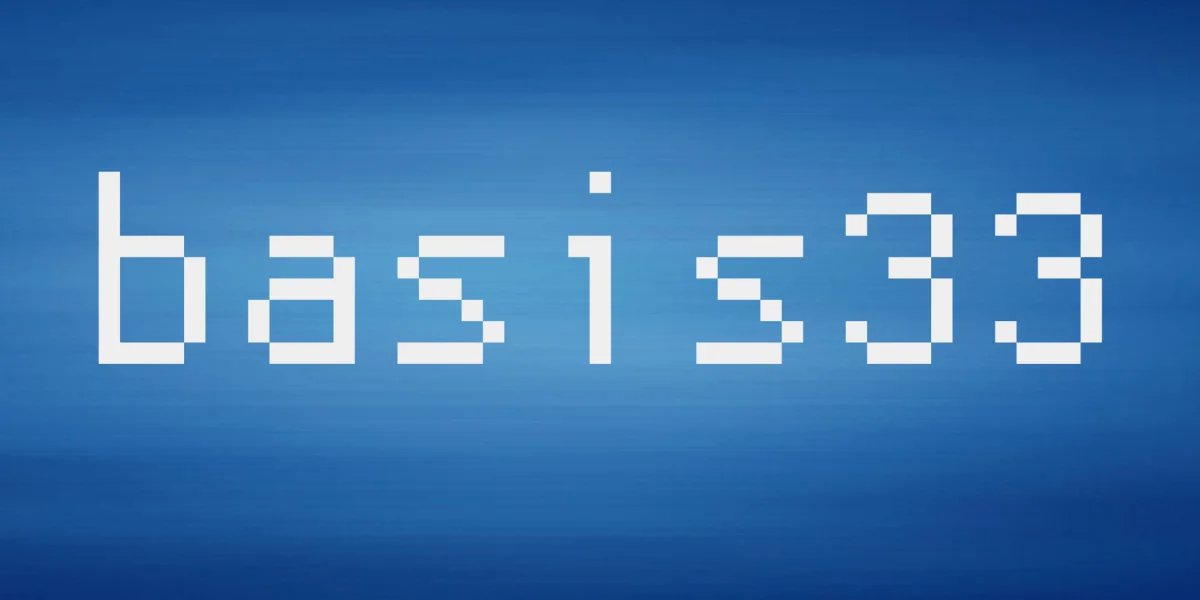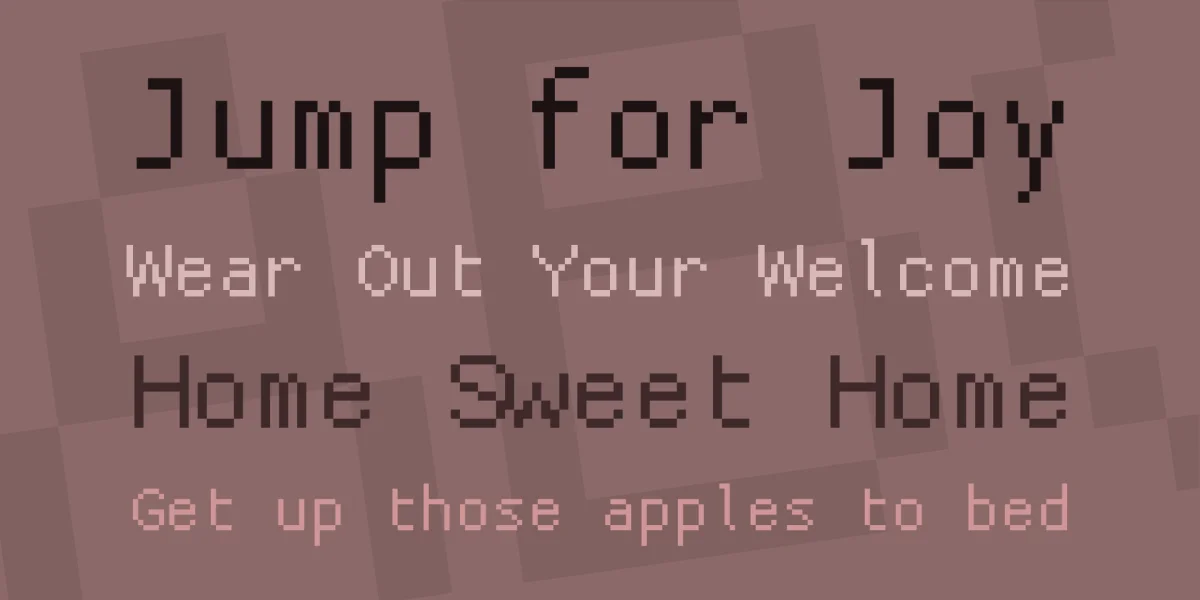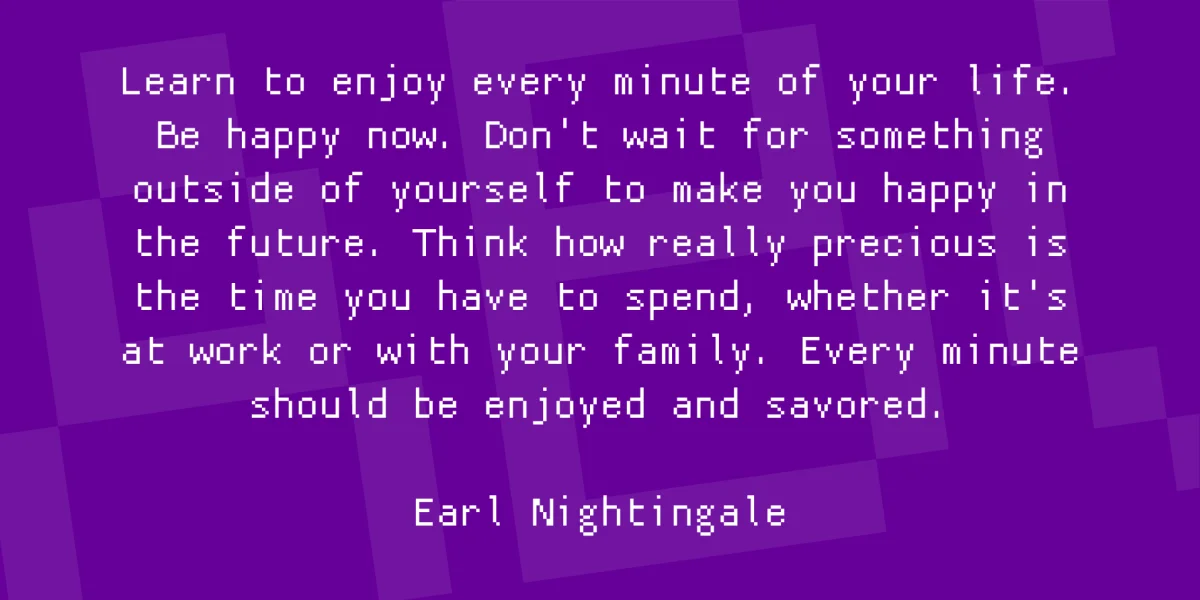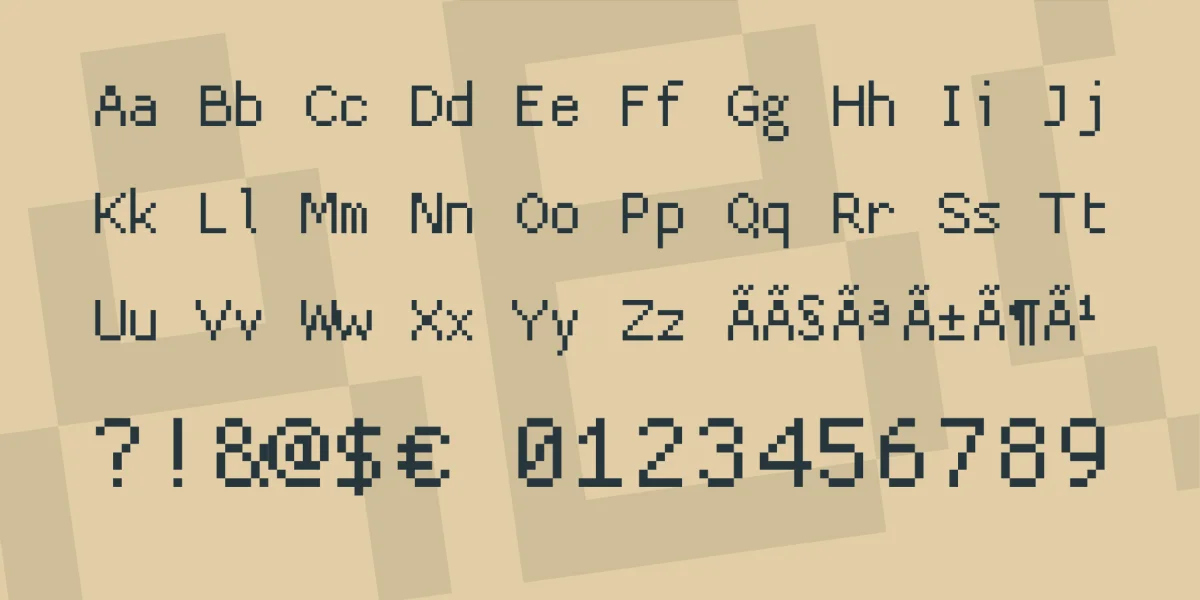
basis33 is a fixed-width font for programming and text editing, which contains Latin, Cyrillic, Greek and Hebrew glyphs. It's designed by Manchson based on Latin-only Proggy Clean font by Tristan Grimmer.